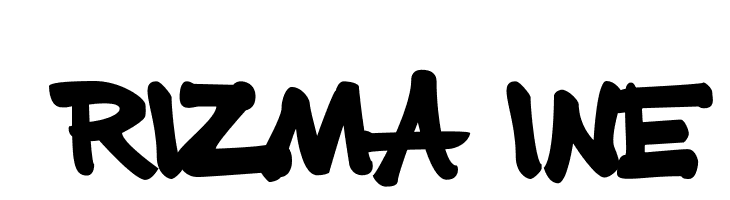
( atravler )
A bold, handwritten-style font with a playful and energetic vibe.
( aqr typeface - Azra Qaireen - bit.ly/2M2eb7C )
An elegant, high-contrast script font with flowing, cursive strokes.
( aqr typeface - Azra Qaireen - bit.ly/2M2eb7C )
An elegant script font with flowing, interconnected letters and refined details.
( aqr typeface - Azra Qaireen - bit.ly/2M2eb7C )
An elegant script font with flowing, interconnected letters and decorative swashes.
( aminabedi68 - Amin Abedi - www.opentype.weebly.com )
A bold, geometric font with rounded edges and a modern outline style.
( aminabedi68 - Amin Abedi - www.opentype.weebly.com )
A futuristic, geometric font with rounded edges and hollow interiors.
( alphadesigner - Yanko Tsvetkov - alphadesigner.com )
A bold, modern font with high contrast and expressive strokes.
( alleytimes - www.alleytimes.net )
A playful handwritten font with a quirky, casual style.
( alifirman - Ali Firman - www.creativefabrica.com/designer/meutuwah/ref/20027/ )
A lively, flowing script font with elegant cursive strokes.
( alifirman - Ali Firman - www.creativefabrica.com/designer/meutuwah/ref/20027/ )
A charming and elegant script font with flowing, cursive letterforms.